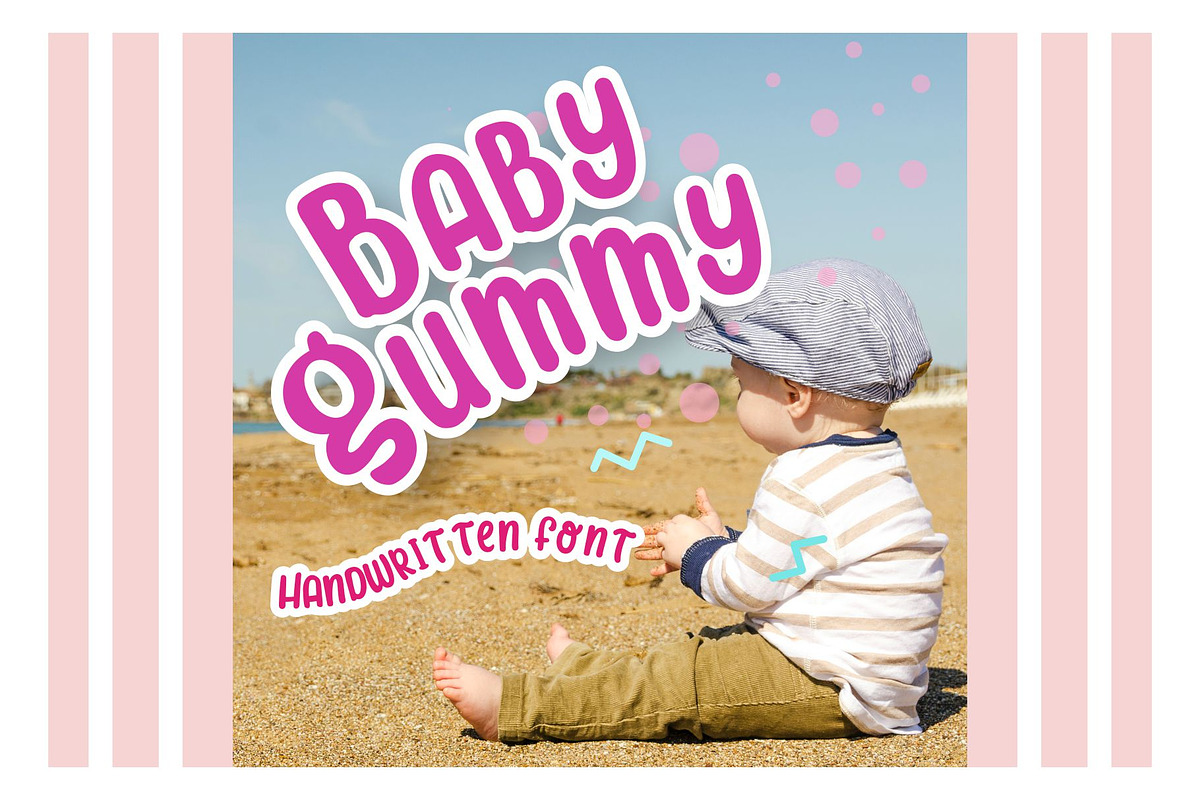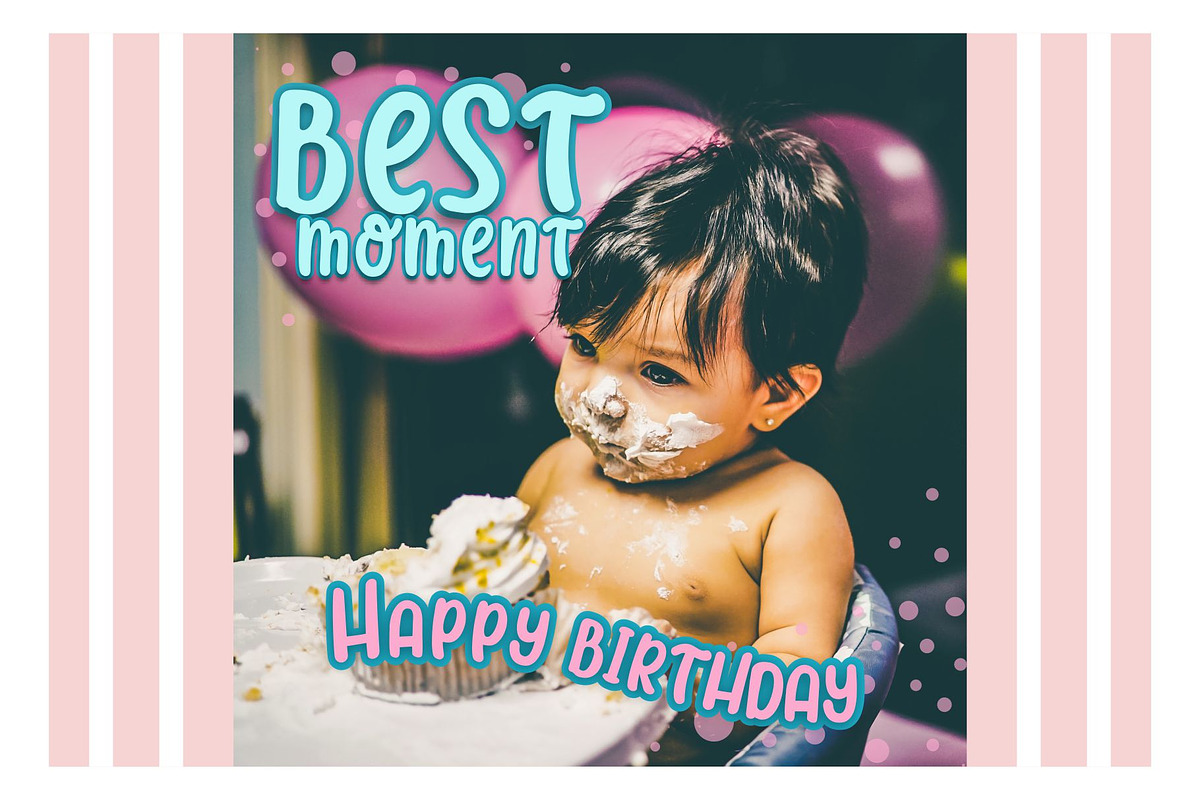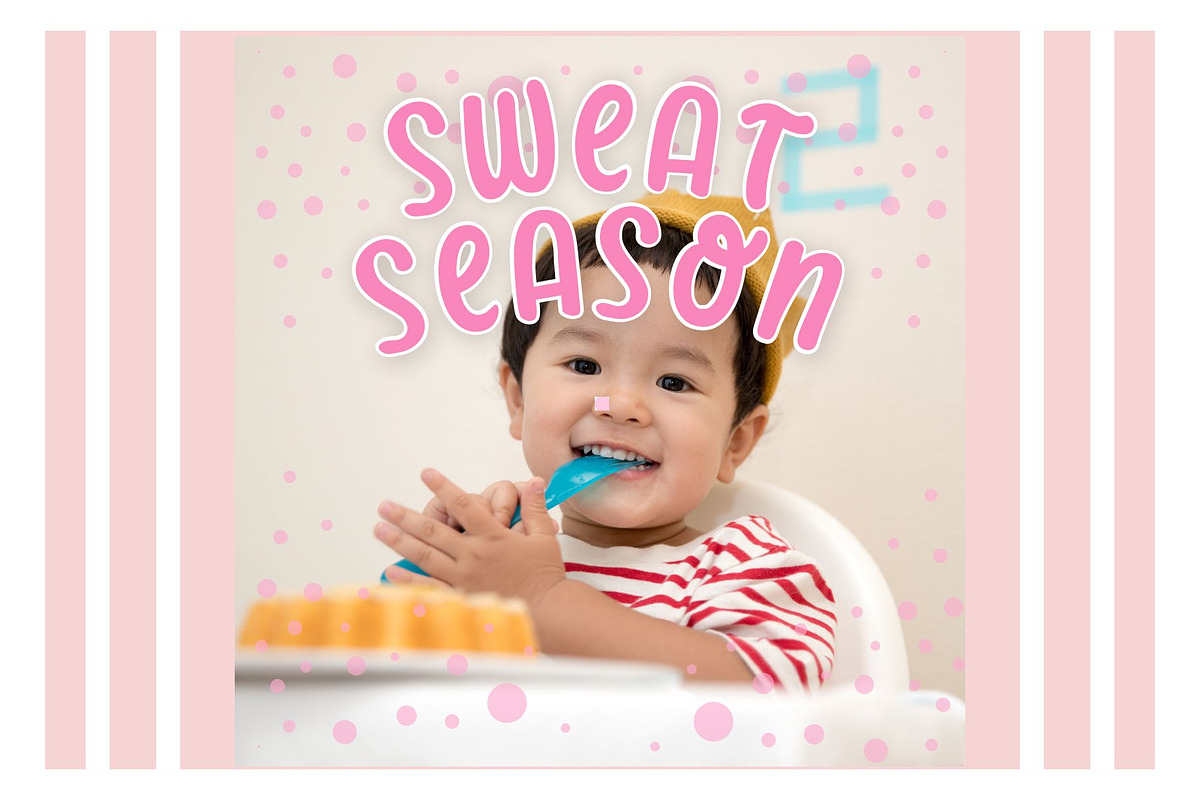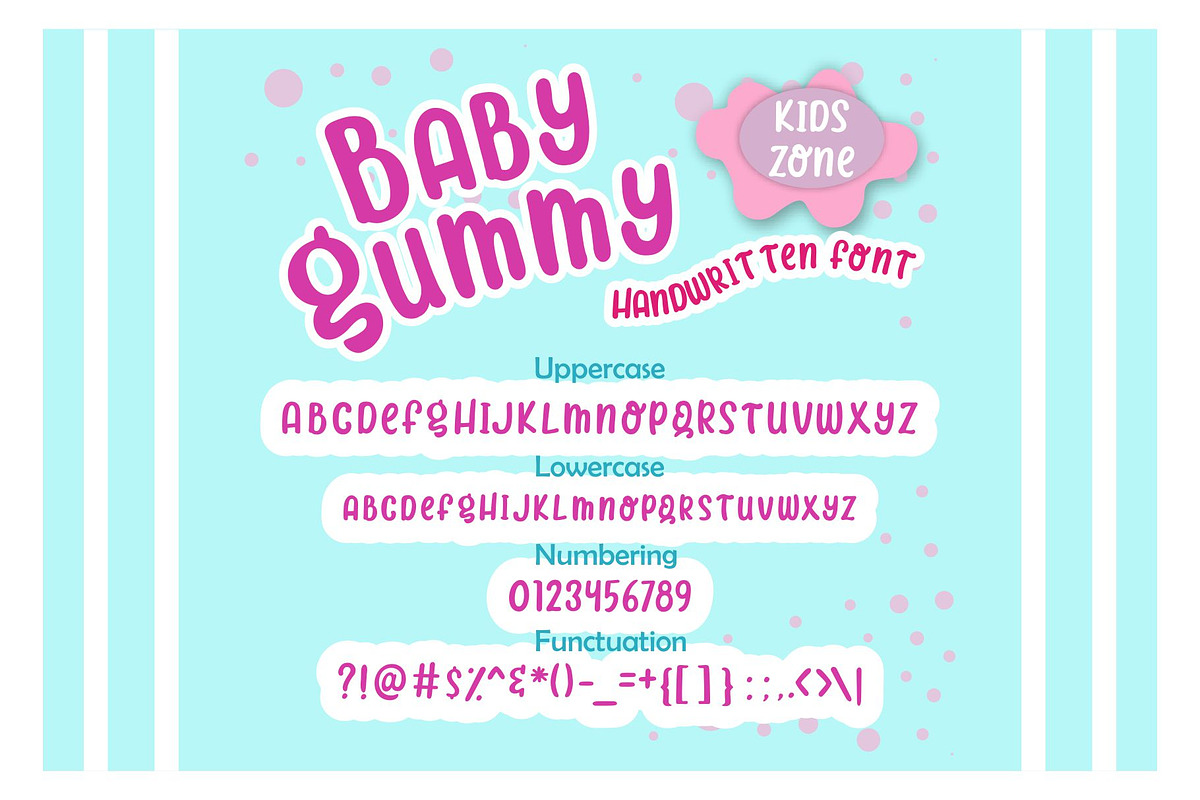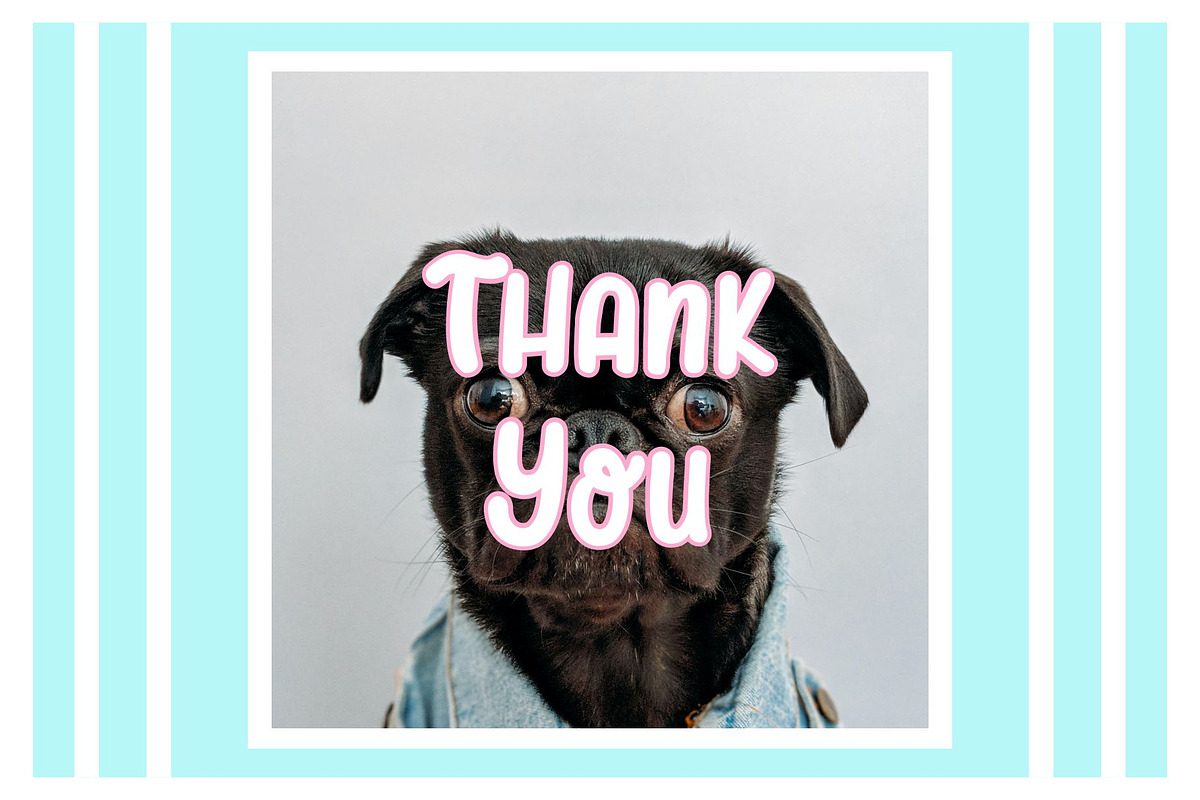
Baby Gummy Handwritten Font
Baby Gummy Fonts are fonts that are specifically designed for the needs of children funny and childish. Suitable for display fonts and decorations.